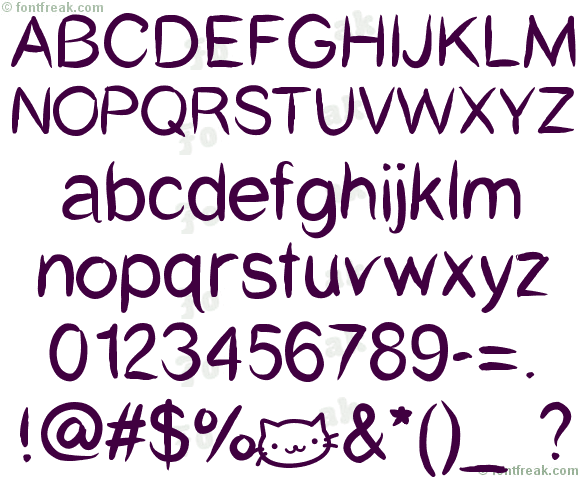
CatCafe
About CatCafe
The CatCafe font, designed by Shara Weber, is a charming display typeface that captures a playful yet elegant essence. This font is categorized as a decorative style, making it a delightful choice for projects that seek to evoke warmth and friendliness. The strokes of the CatCafe font exhibit a consistent weight, with subtle curves that add a whimsical touch. Its moderate contrast and balanced spacing enhance readability while maintaining a lighthearted aesthetic, making it suitable for various creative applications.
The CatCafe font shines in scenarios where a touch of personality is desired. It is perfect for crafting inviting restaurant menus, where its playful design can entice diners. Additionally, it makes a great choice for designing quirky branding materials for pet-related businesses, such as cat cafes and animal shelters. The font can also be effectively utilized in invitations for casual events, like birthday parties or community gatherings, where a fun and approachable vibe is essential. Graphic designers and content creators will find this font particularly appealing for social media graphics or blog headers, as it adds a unique flair that captures attention.
What truly sets the CatCafe font apart is its ability to blend playfulness with readability, making it an ideal choice for a variety of applications. Whether you’re aiming to create an inviting atmosphere or simply want to add a touch of whimsy to your work, CatCafe delivers with its unique charm and versatility.